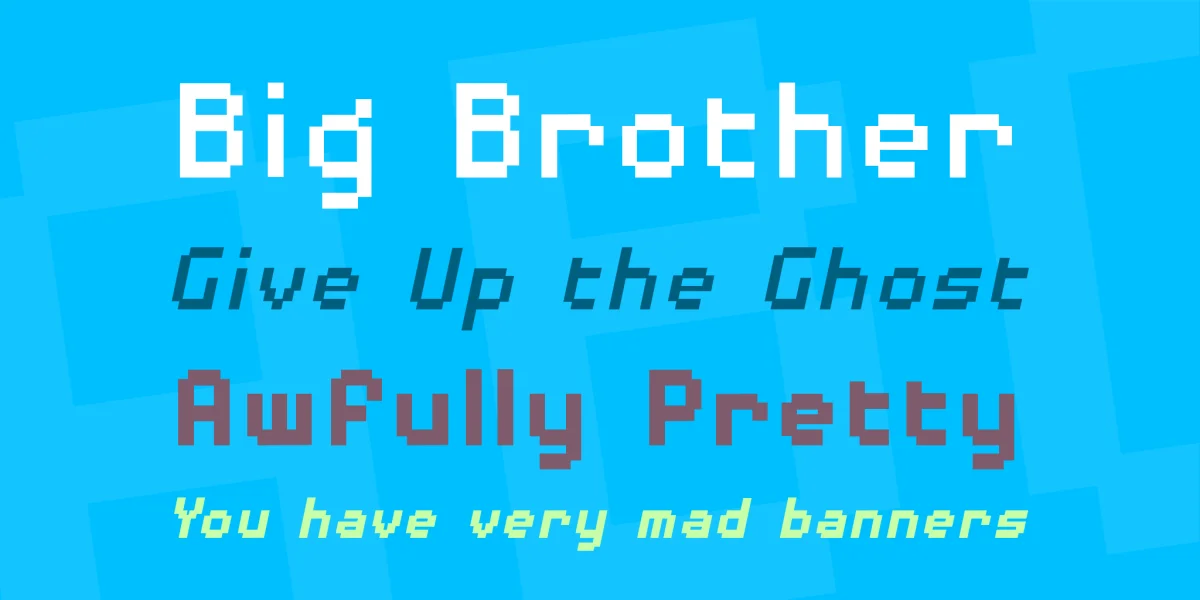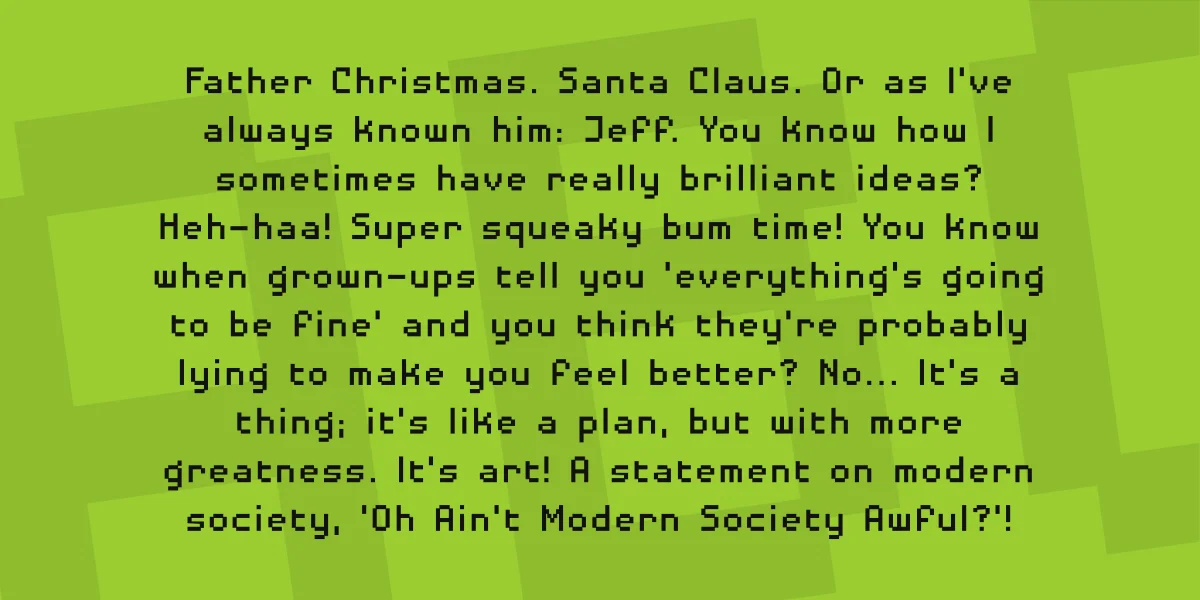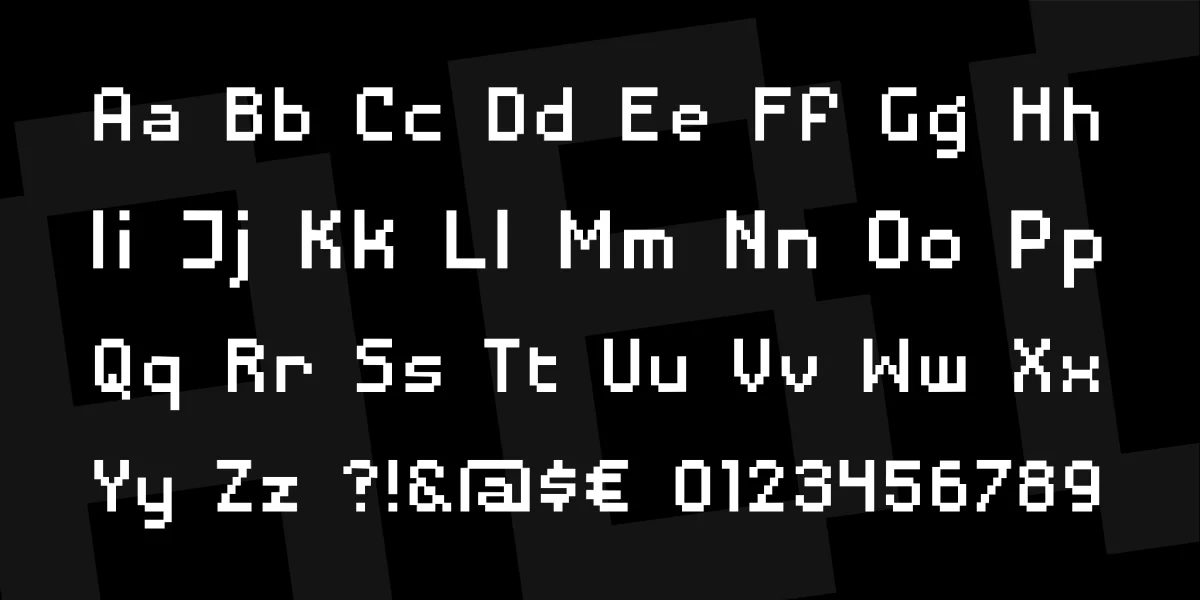
I found myself constantly searching for a pixel font that could double as "on screen" text for computers and old-school robot dialogue, so I came up with DISPOSABLE DROID -- it's what I call a "faux pixel font", since it doesn't actually follow a perfect grid. Comes in four soulless, mechanical flavors: Regular, Bold, Italic and BoldItalic.